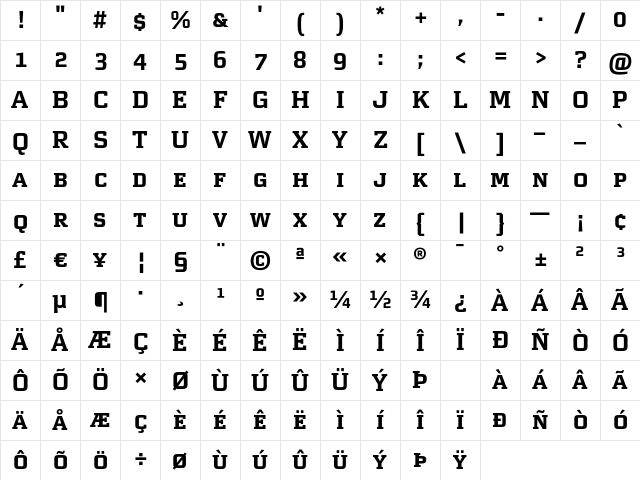
MorganAvec BoldExpert
Style: BoldExpert
Complete MorganAvec BoldExpert glyph index. Displaying only characters natively supported by MorganAvec BoldExpert font.
Design Context for MorganAvec
MorganAvec is a composed and adaptable typeface that performs quietly and consistently across a wide range of design contexts. Its bold stroke weight gives it real presence on the page.